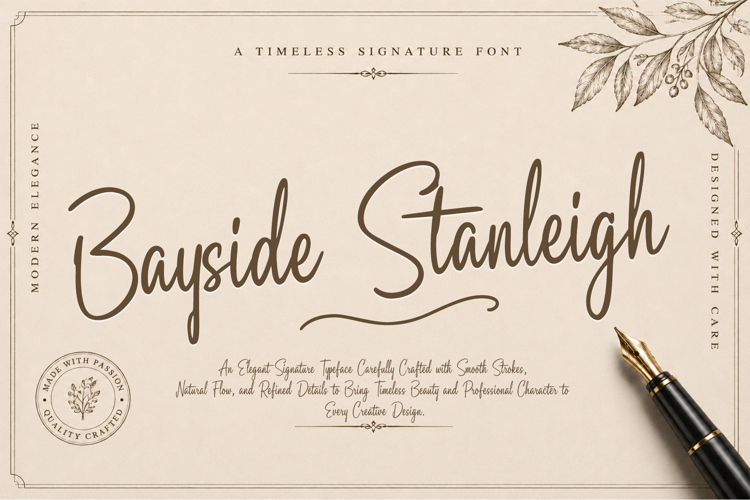
Bayside Stanleigh
Bayside Stanleigh is an elegant signature script font that captures the beauty of natural handwriting with smooth curves, graceful strokes, and refined details. Designed with a clean and timeless aesthetic, this typeface delivers a sophisticated look while maintaining excellent readability.
Its flowing letterforms and balanced character make it a versatile choice for a wide range of creative projects, from luxury branding to modern editorial design. Whether used as a bold headline or a stylish signature, Bayside Stanleigh adds warmth, authenticity, and premium appeal to every composition.
Perfect for creating memorable visual identities, this font works beautifully across both print and digital media.